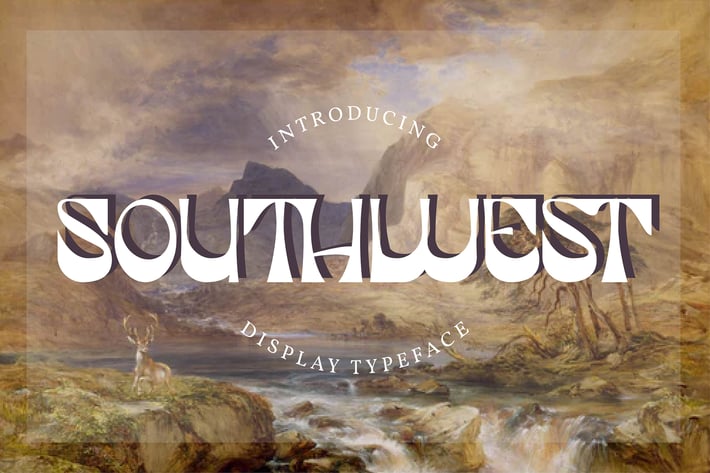
Southwest | Display Typeface Font
Southwest | Display Typeface Font with a calligraphy style, So beautiful on invitation like greeting cards, branding materials, business cards, quotes, posters, and more!